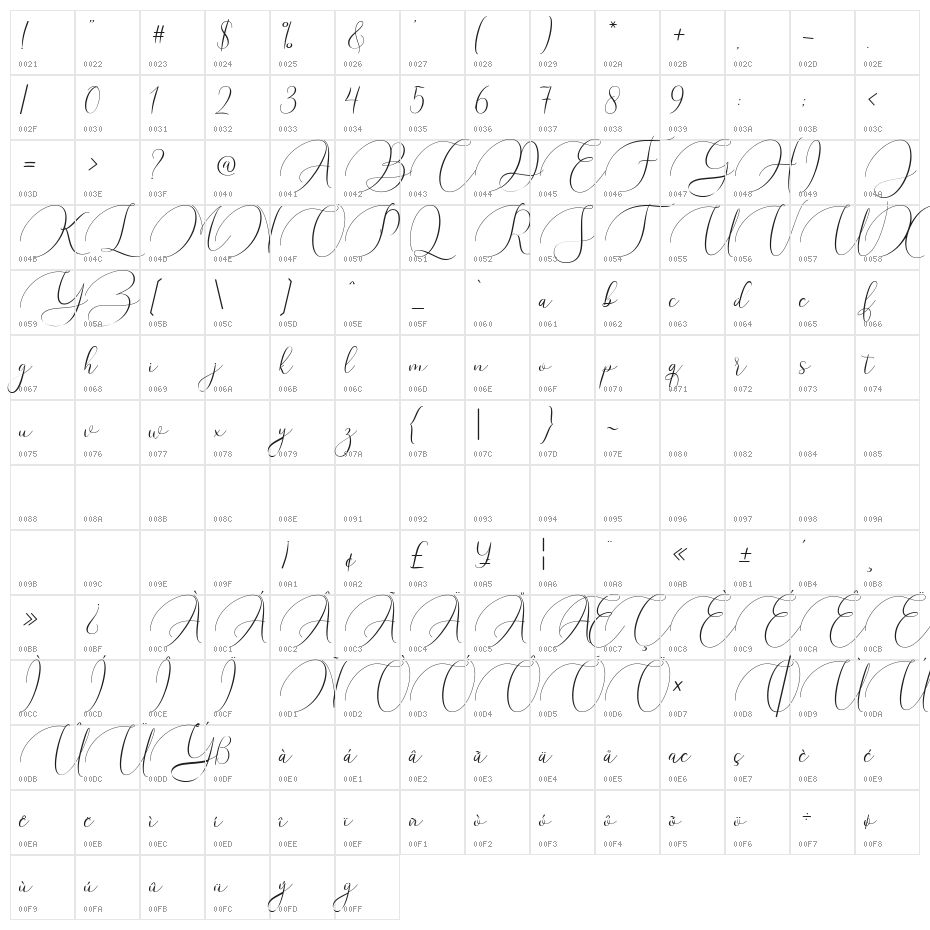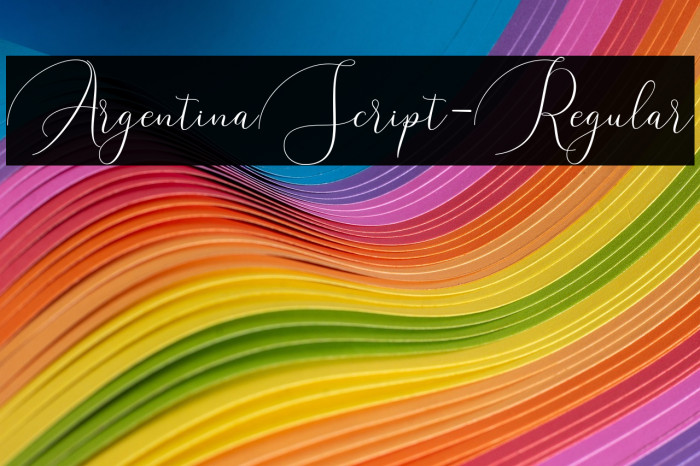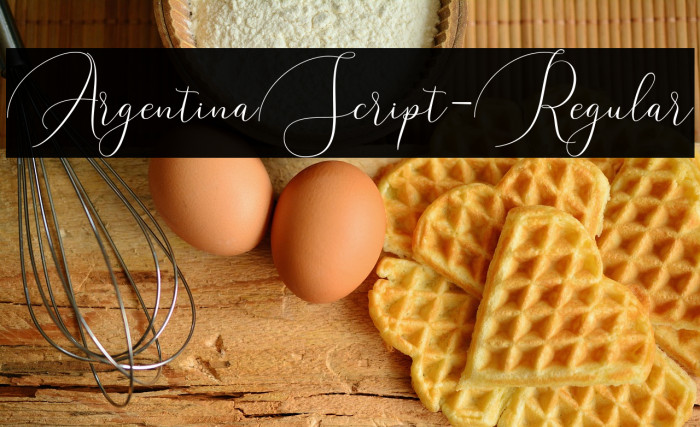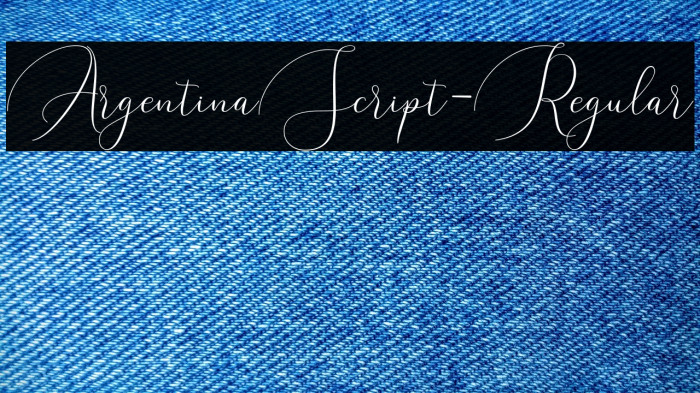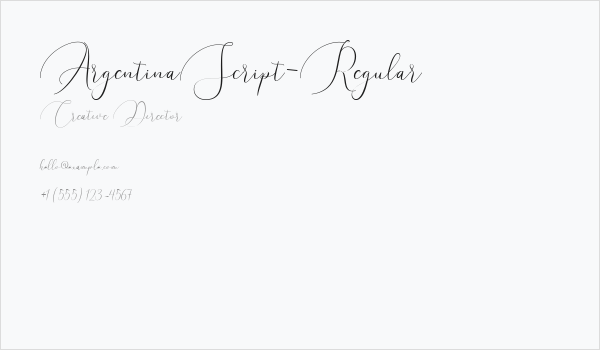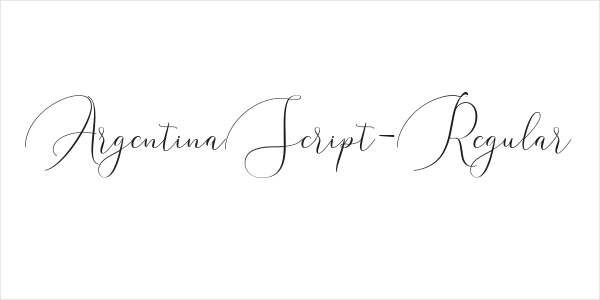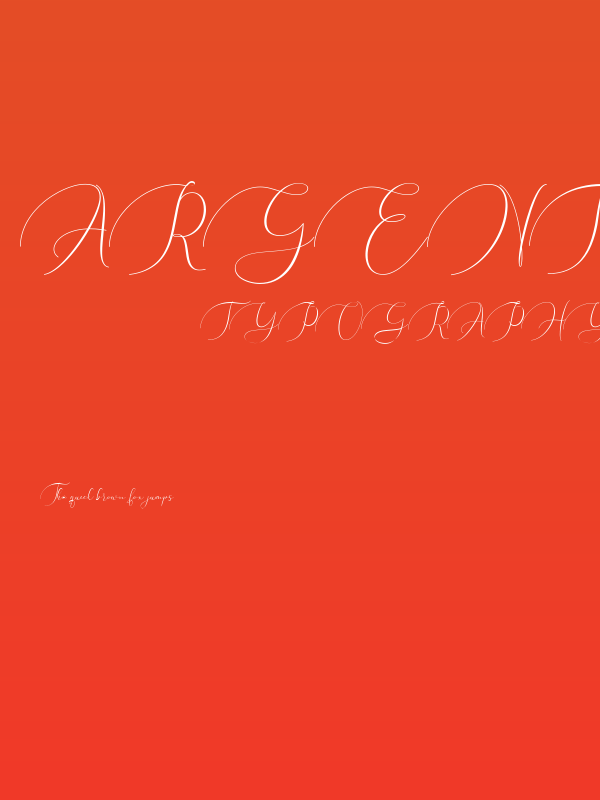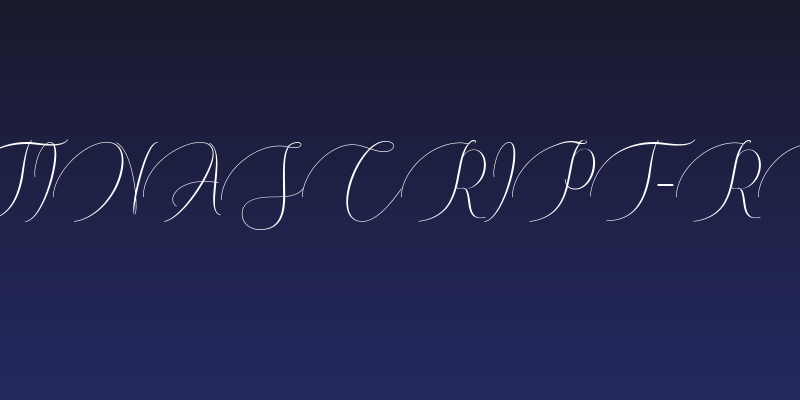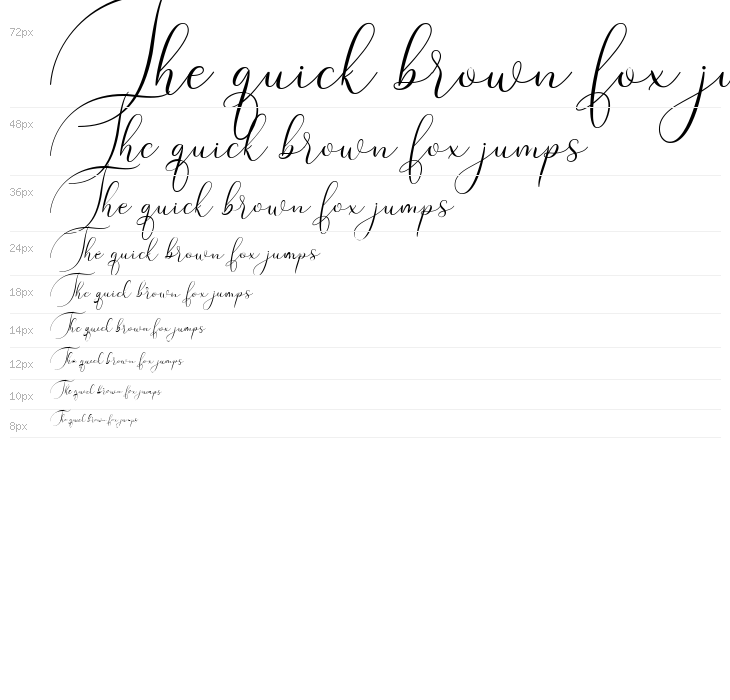
ArgentinaScript-Regular Font
ArgentinaScript-Regular Description
This elegant script font features flowing, cursive letterforms that exude sophistication and grace. The uppercase letters are intricately designed with delicate loops and swashes, while the lowercase letters maintain a consistent, fluid style that enhances readability. The numerals are stylishly crafted, complementing the overall aesthetic of the font. Special characters are thoughtfully integrated, adding versatility for various design needs. The font's refined appearance makes it ideal for formal invitations, branding, and decorative purposes, where a touch of elegance is desired.
| Overall Style | Elegant, Decorative |
| Use Case | Invitations, Branding, Decorative text |
| Proposed Projects | Ideal for wedding invitations, elegant branding, greeting cards, and decorative projects. |